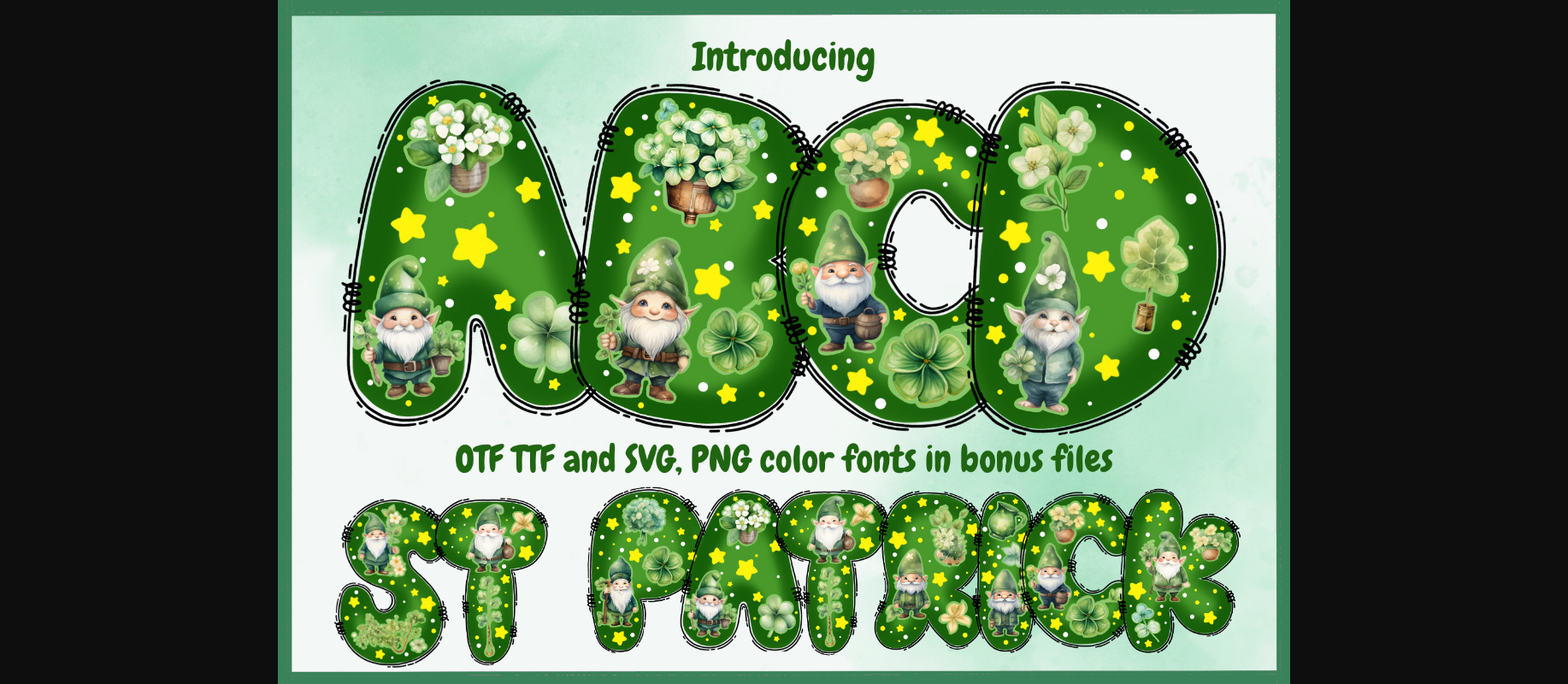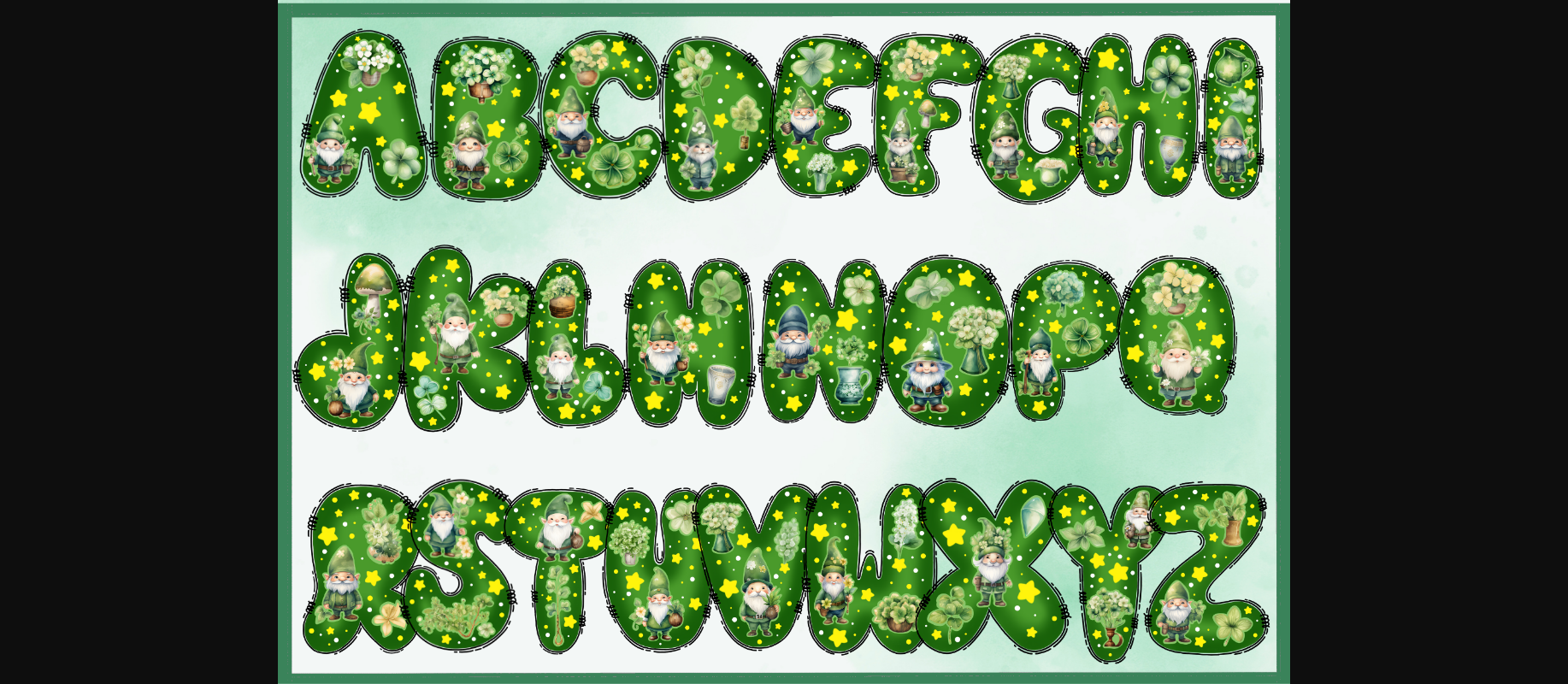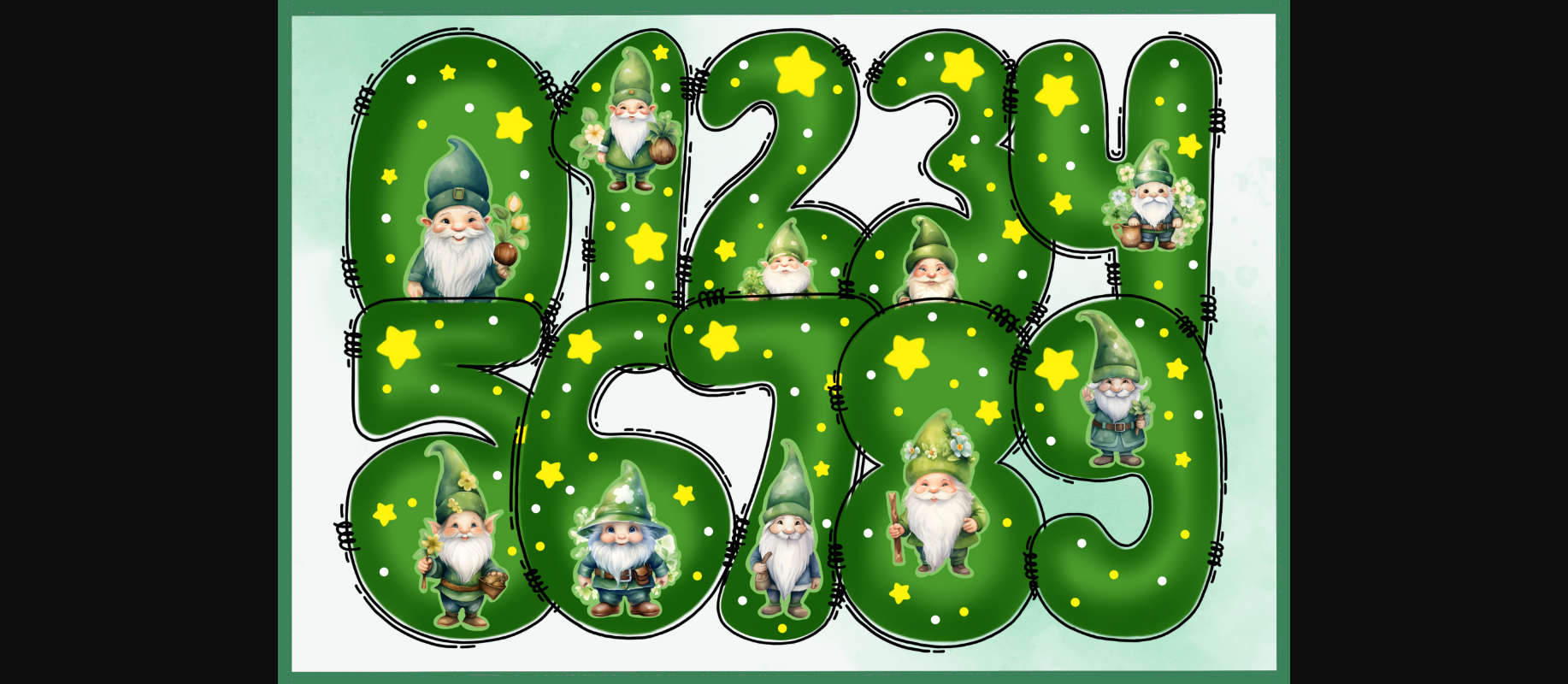
About St Patrick Font
St Patrick is a festive display font that brings the luck of the Irish to your designs! This playful font comes with extra SVG letters adorned with charming four-leaf clovers, gnomes, and other delightful elements, making it perfect for St. Patrick’s Day-themed projects. Add a touch of whimsy and celebration to your designs with St Patrick, ensuring a festive and eye-catching display that captures the spirit of this special occasion.